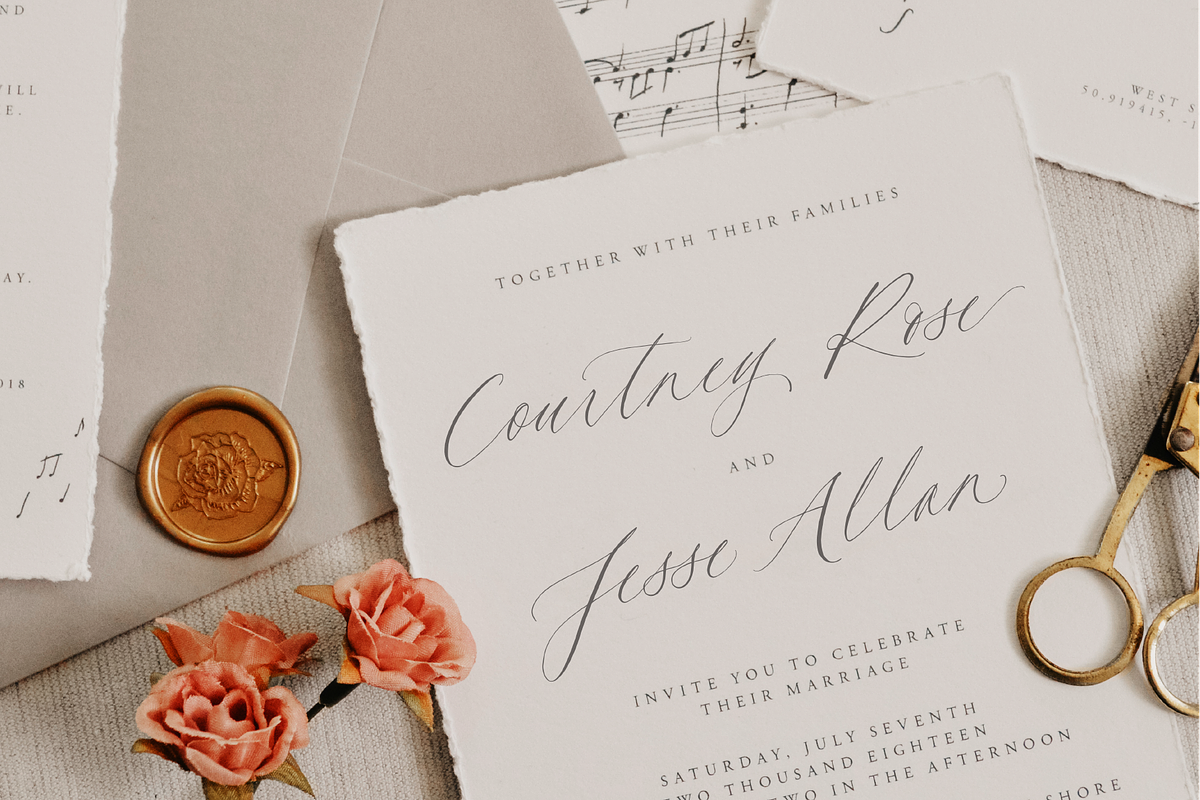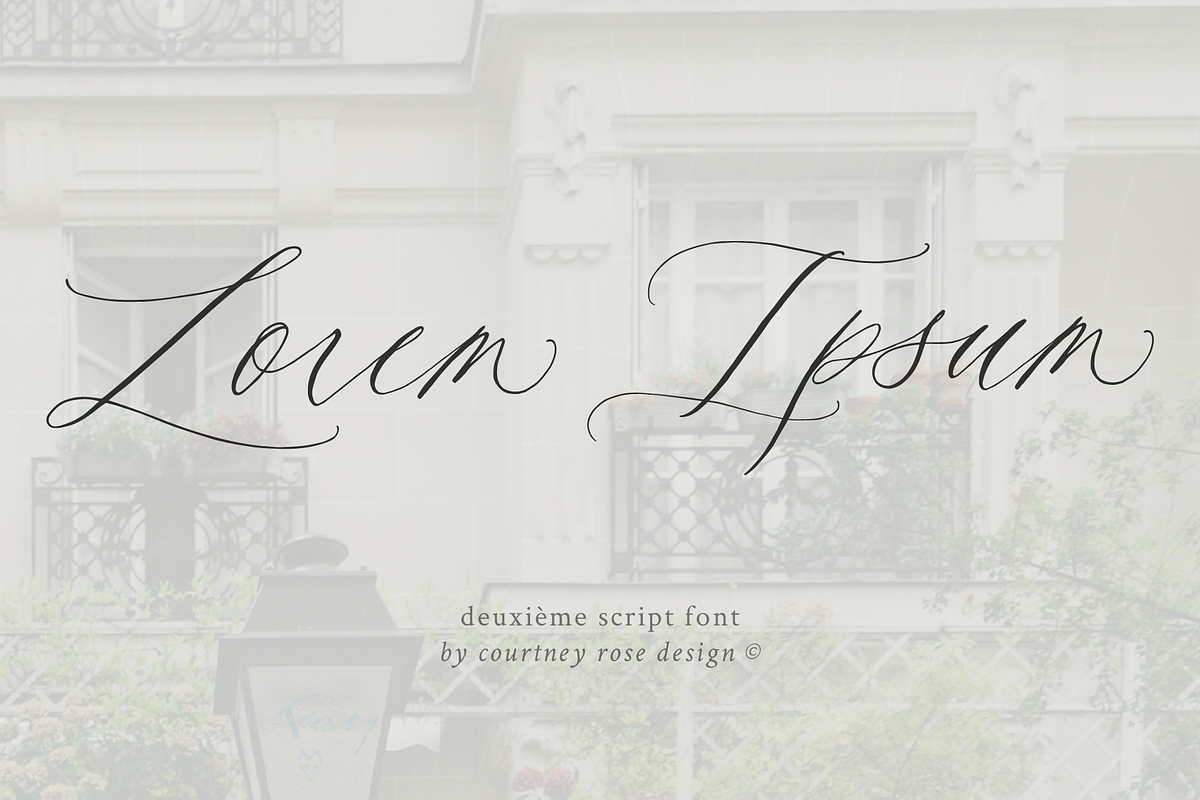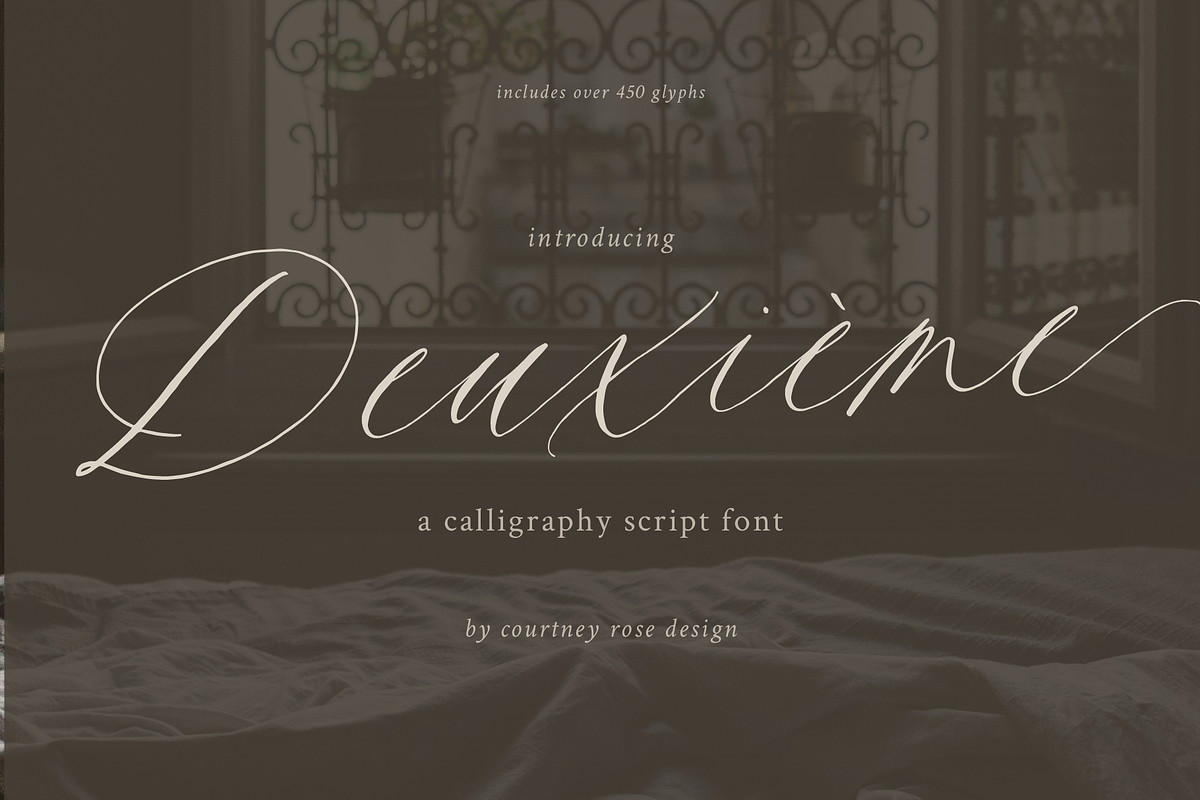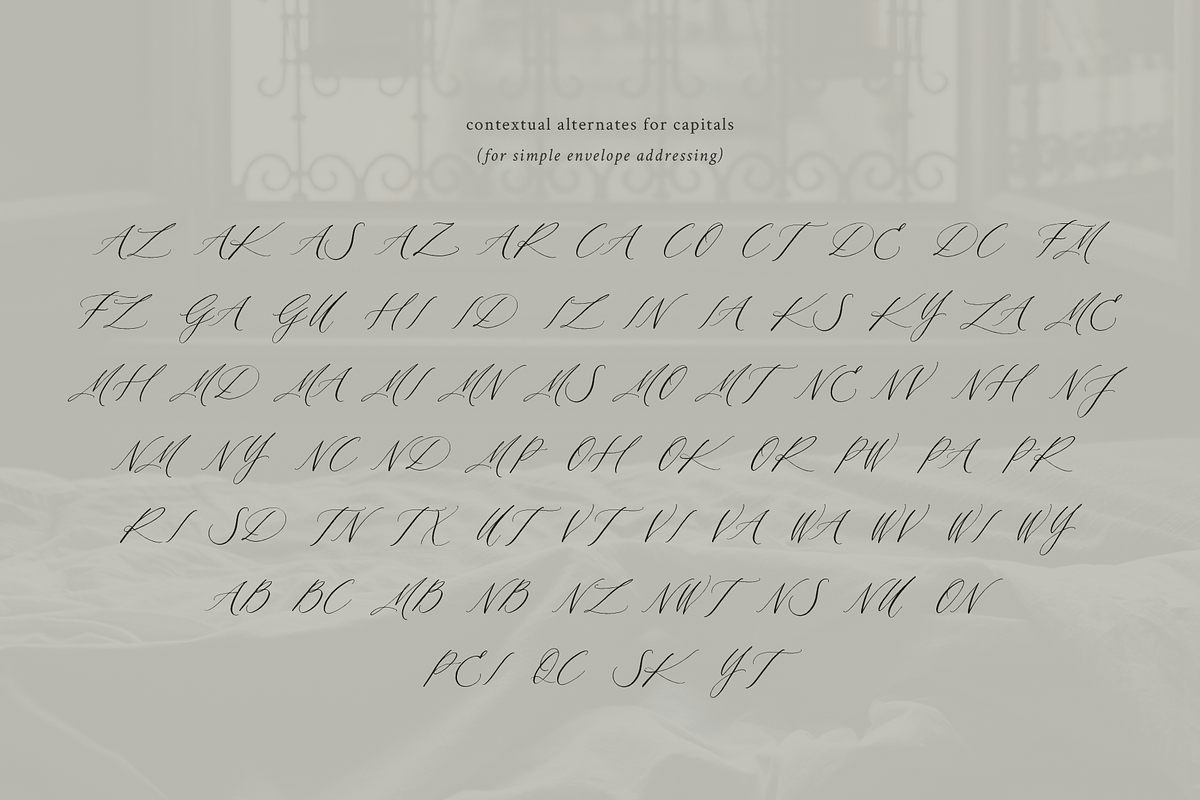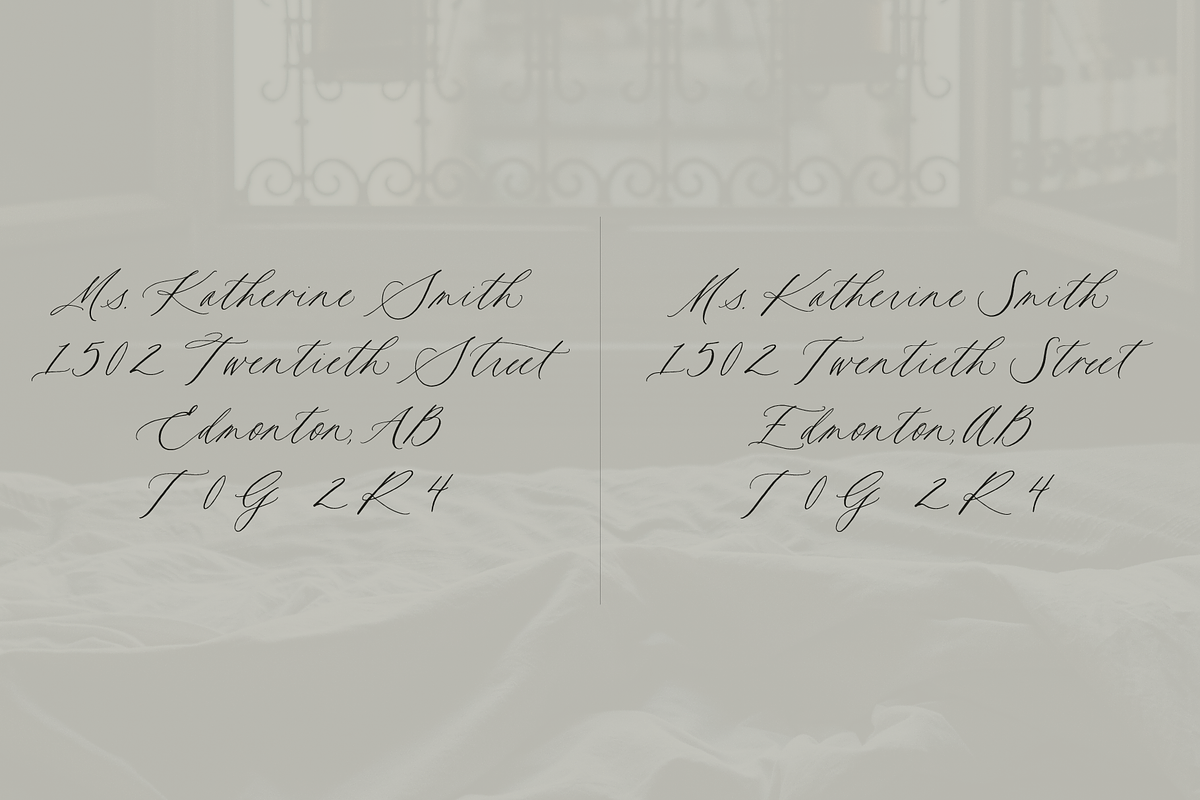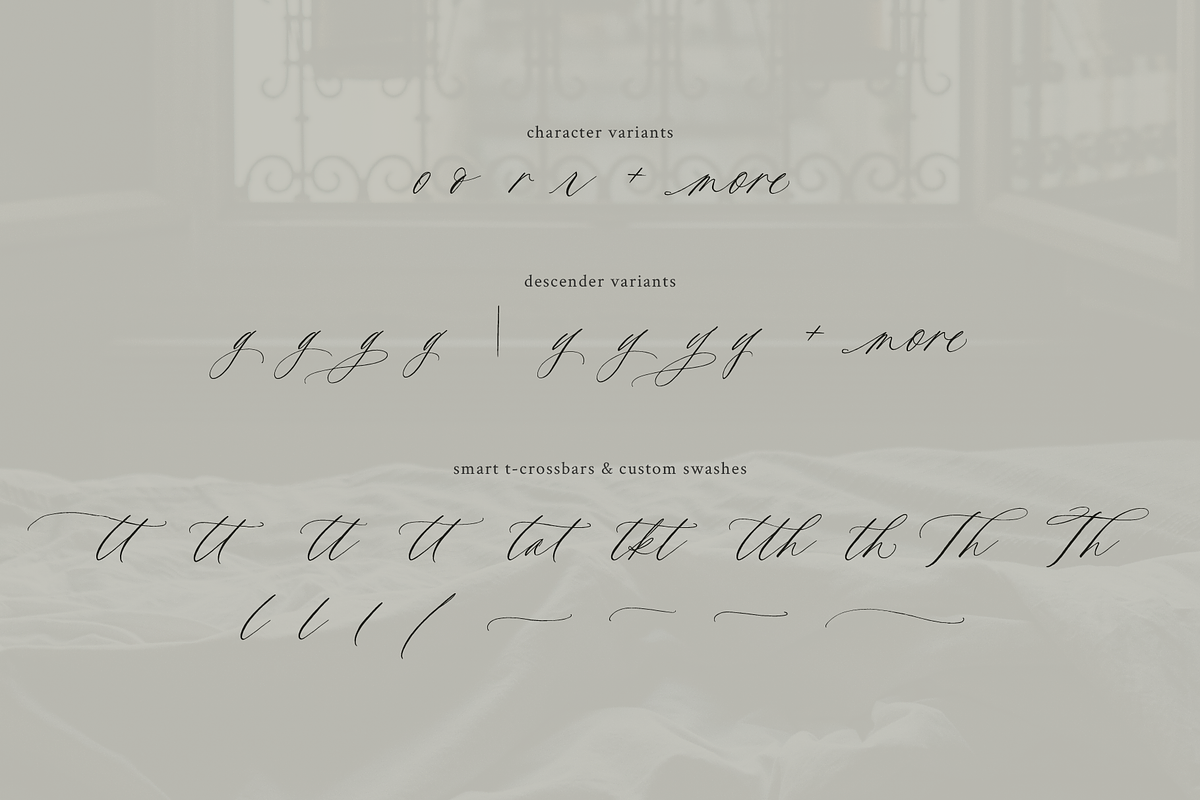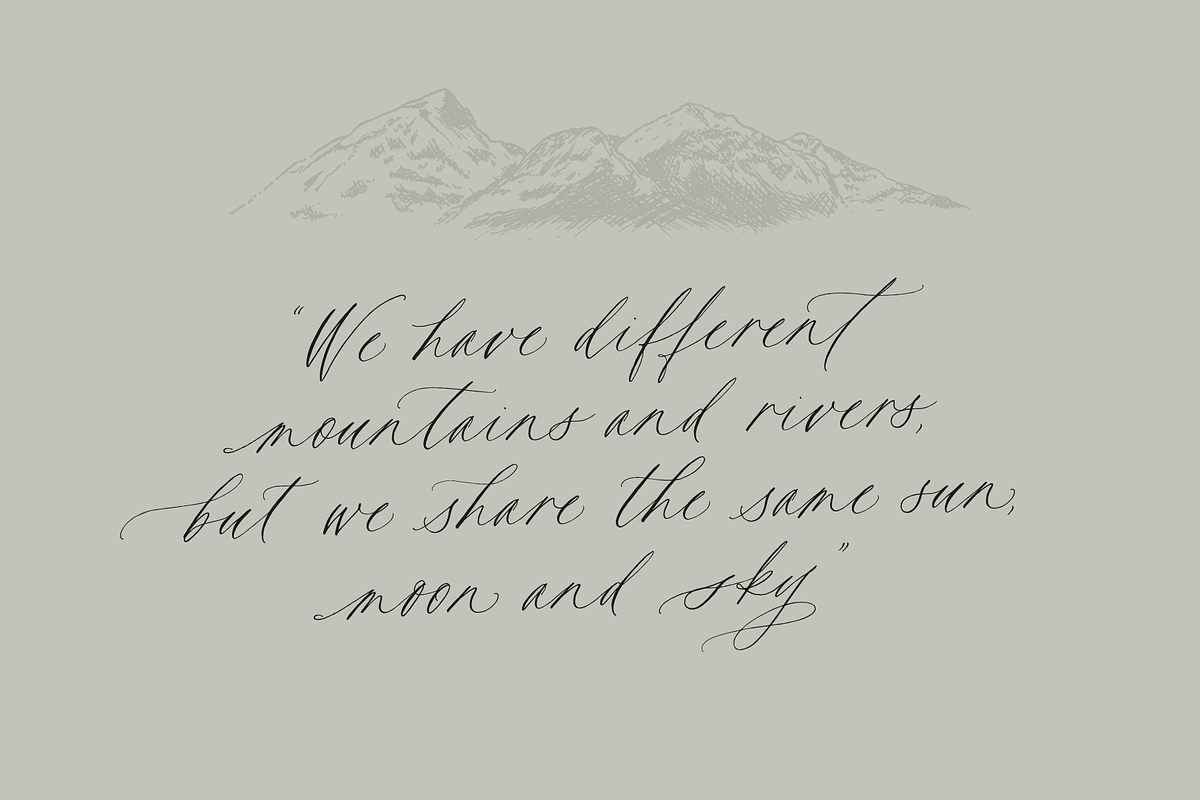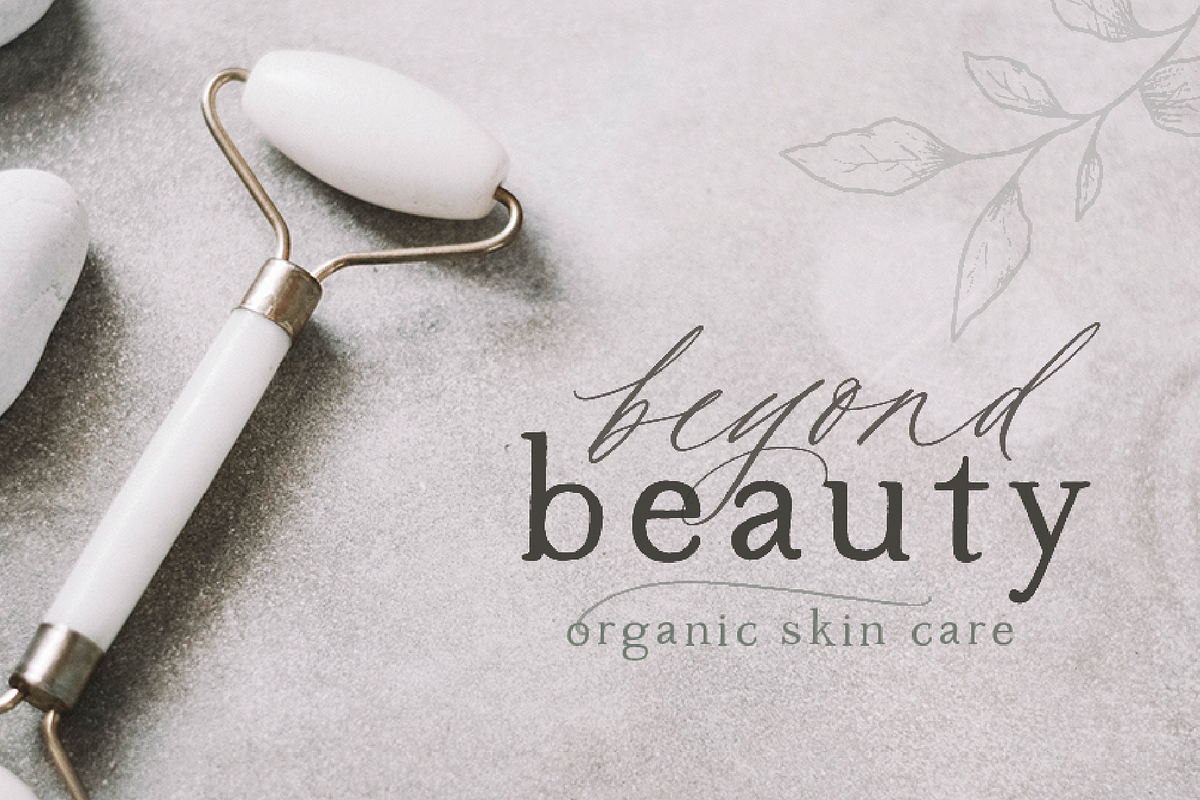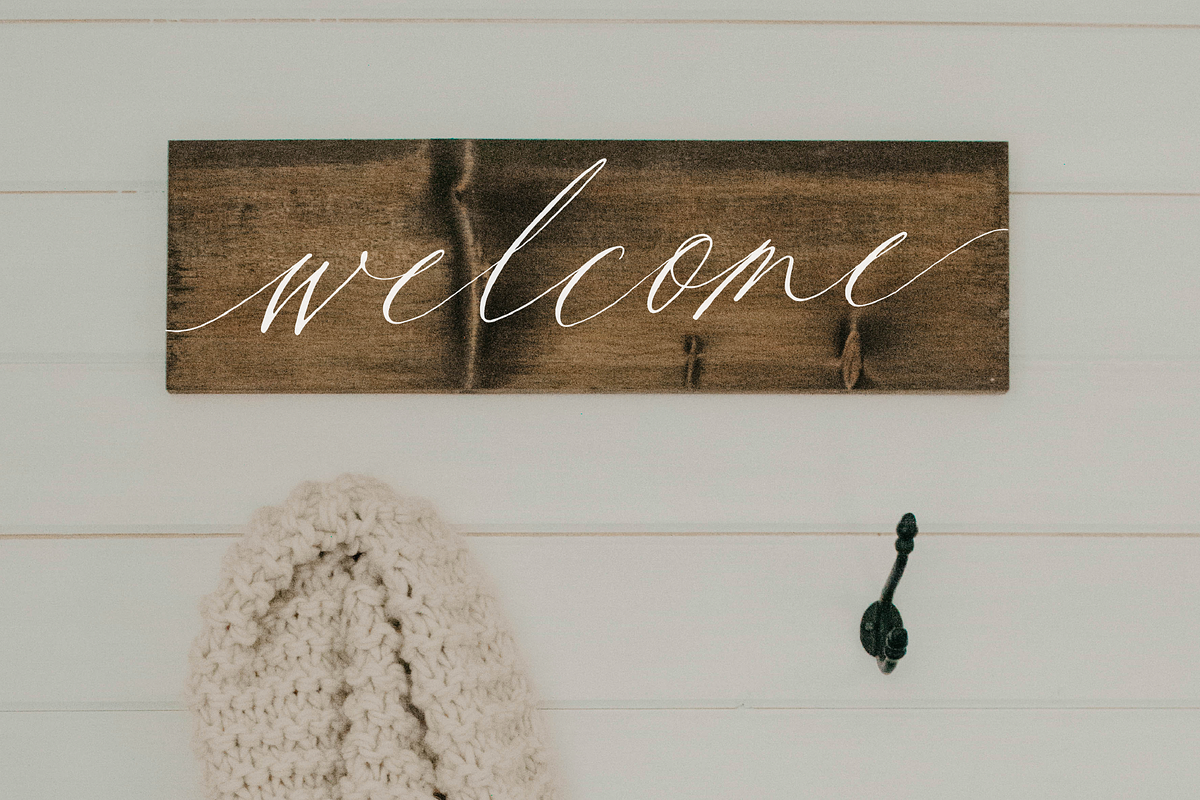
Deuxieme Script Font
Introducing Deuxième (doe•zyèm) – An imperfect, luxe pointed pen script typeface from the designer and calligrapher at Courtney Rose Design for brand designers, stationers, and makers.
This font was designed to seamlessly create luxurious logos with personality, wedding stationery that is romantic yet perfectly imperfect, and for makers and product designers who are looking for the perfect script font to complement their designs, from greeting cards to signage and so much more.
It’s all in the details with OpenType programming that allows for extensive customization including standard and discretionary ligatures, initial and end forms, t-crossbars, and contextual alternates.
FONT FEATURES
• Includes 450+ glyphs
Character Variants • Variants for every lowercase letter and Uppercase Letter • 4 descender variants for g,j,f,y, and z and many more.
• Smart t crossbars and custom ones (Just select the crossbar you want from the glyph table as a separate text element and move it anywhere.)
• Contextual alternates for initial and end forms, Capital and lowercase
• Symbols and Punctuation
• Roman Numerals
• Multilingual (Uppercase and lowercase)
• PUA Encoding